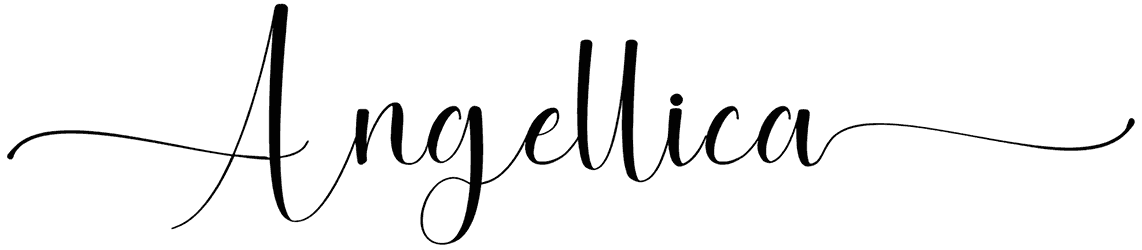
Angellica Font
For various novel ideas, you can choose and set a manuscript face art that will give them an elegant mood. This feminine font with its modern and nice style is a perfect item for formal or informal projects. As a curvy h…
For various novel ideas, you can choose and set a manuscript face art that will give them an elegant mood. This feminine font with its modern and nice style is a perfect item for formal or informal projects. As a curvy handwritten font, Angellica can be used for a lot of items like business cards, planners, Instagram posts, and so forth.